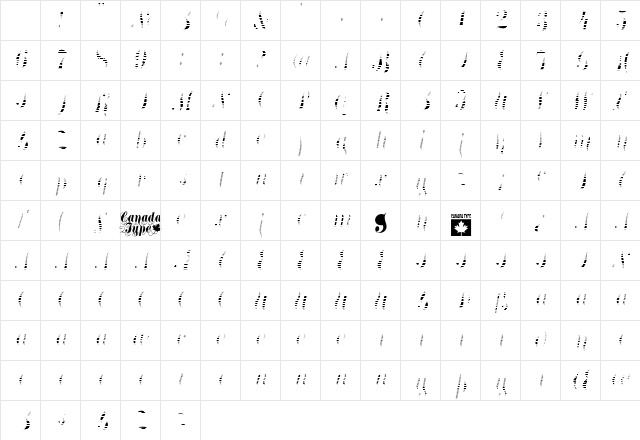
Complete Treasury System Alt SSS Regular glyph index. Displaying only characters natively supported by Treasury System Alt SSS Regular font.
Treasury System Alt SSS is a composed and adaptable typeface that performs quietly and consistently across a wide range of design contexts.